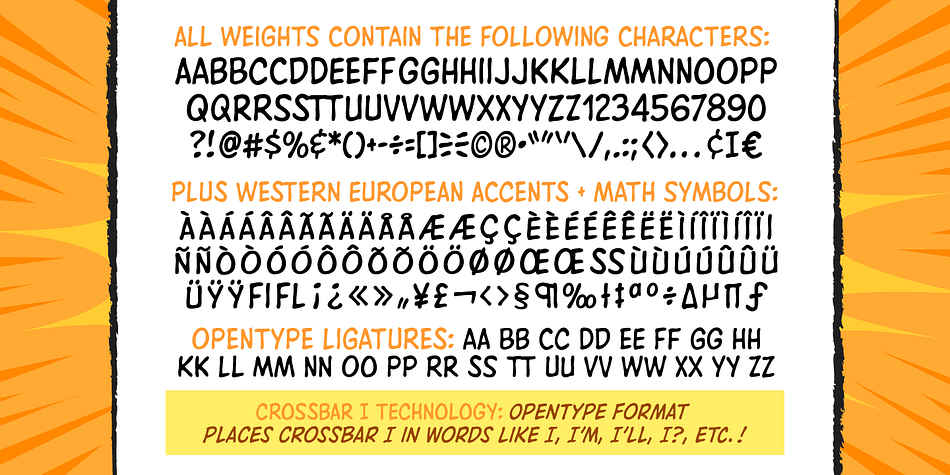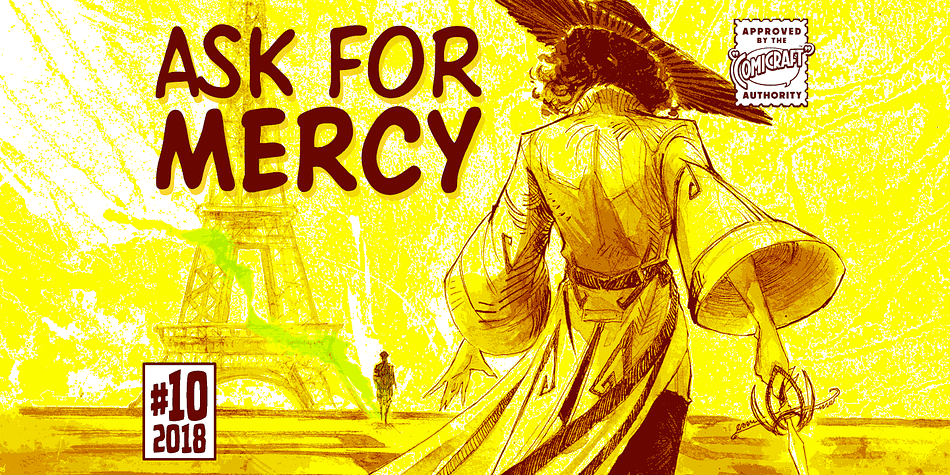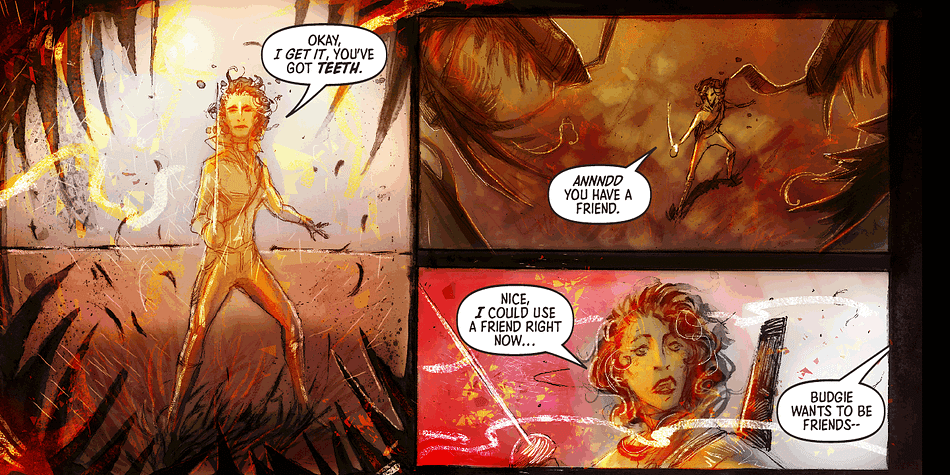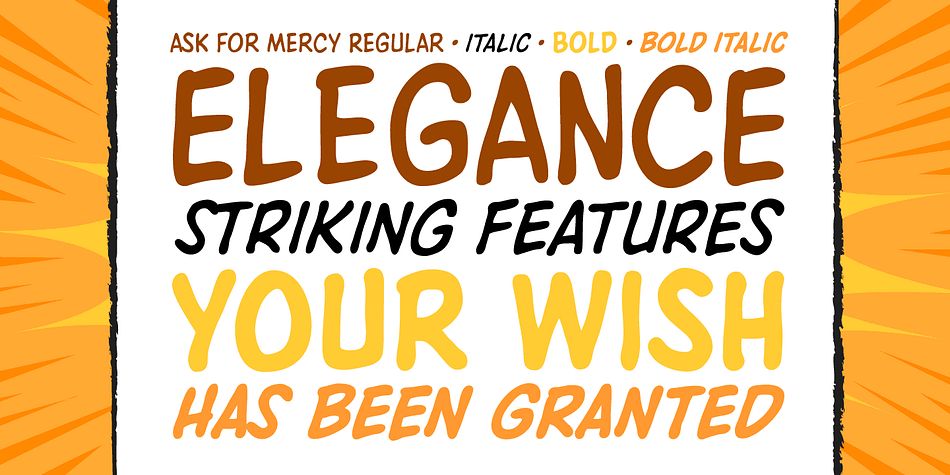
Designed by John Roshell, Ask for Mercy is a comic and hand display font family. This typeface has four styles and was published by Comicraft.
She’s tall and thin with elegant, long legs and striking features. She can be seen in Comicraft’s COMIXOLOGY ORIGINALS series, ASK FOR MERCY. No, not Mercy herself — we’re talking about the ASK FOR MERCY font! Yes, you asked for Mercy—begged for it even—and now we are granting it to you! Mercy Mercy Me.